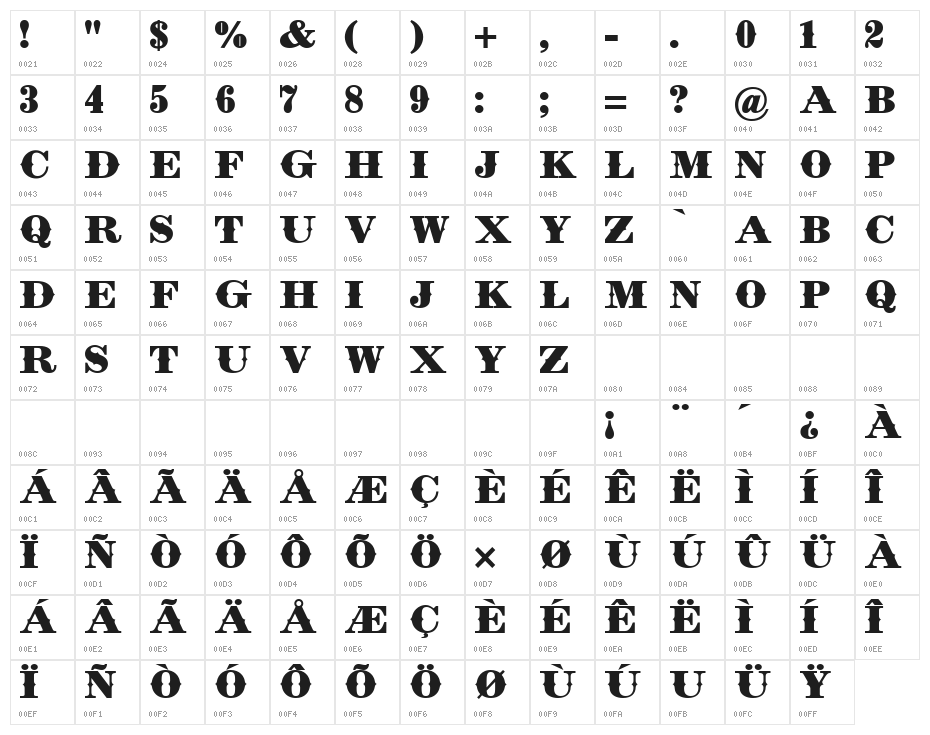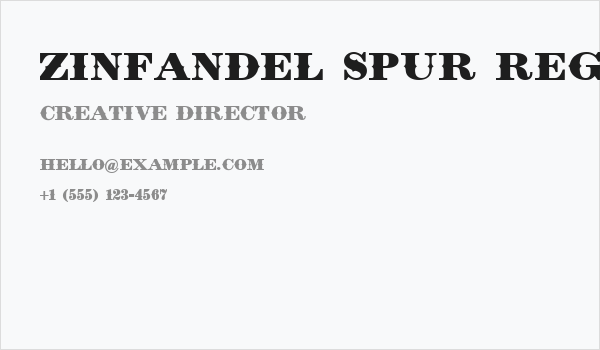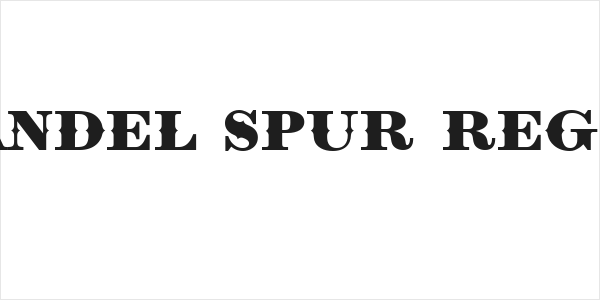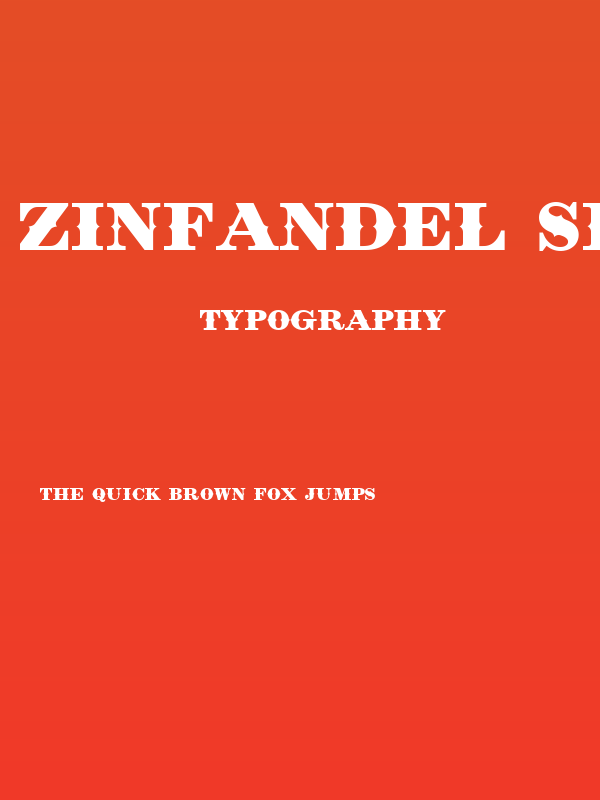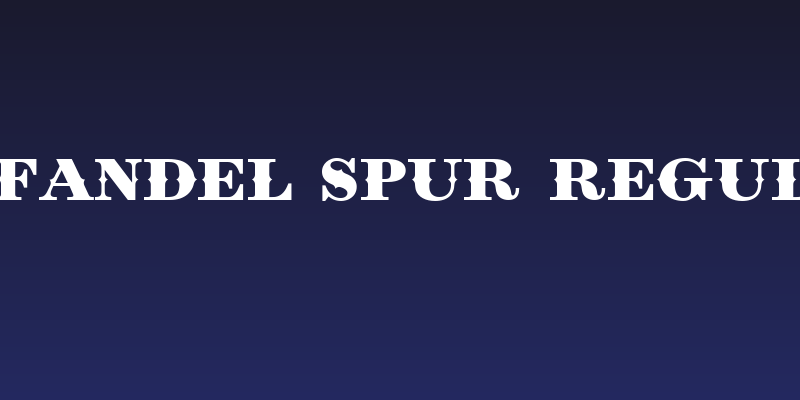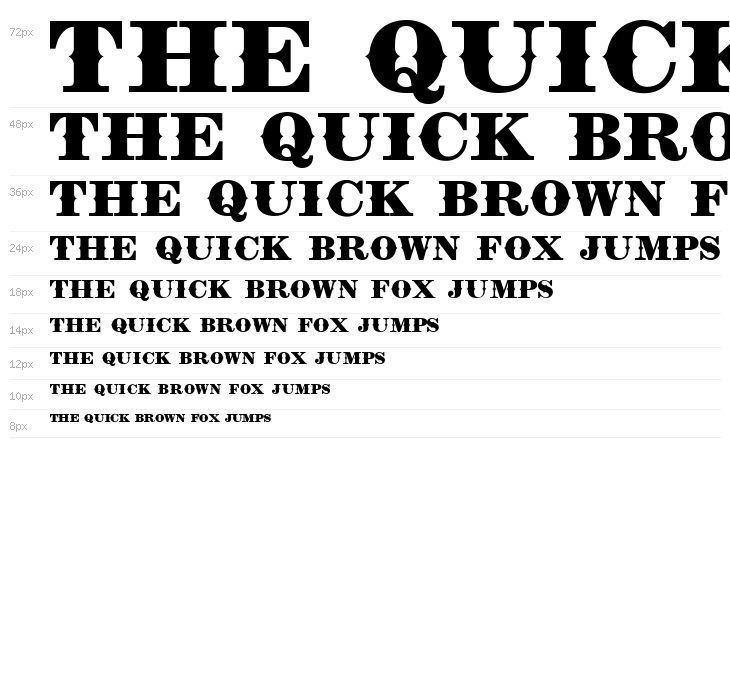
Zinfandel Spur Regular Font
Zinfandel Spur Regular Description
This font features a bold and striking design with pronounced serifs and a strong presence. The characters exhibit a unique spur detail that adds a decorative flair, making it stand out in any design. The uppercase and lowercase letters maintain a consistent weight, providing a cohesive look. The numerals are equally bold, ensuring they are easily readable. Special characters are designed with the same attention to detail, making them suitable for various creative applications. The overall aesthetic is reminiscent of vintage Western styles, yet it maintains a modern edge.
| Proposed Projects | Ideal for branding, posters, signage, and any project requiring a bold, vintage aesthetic. |